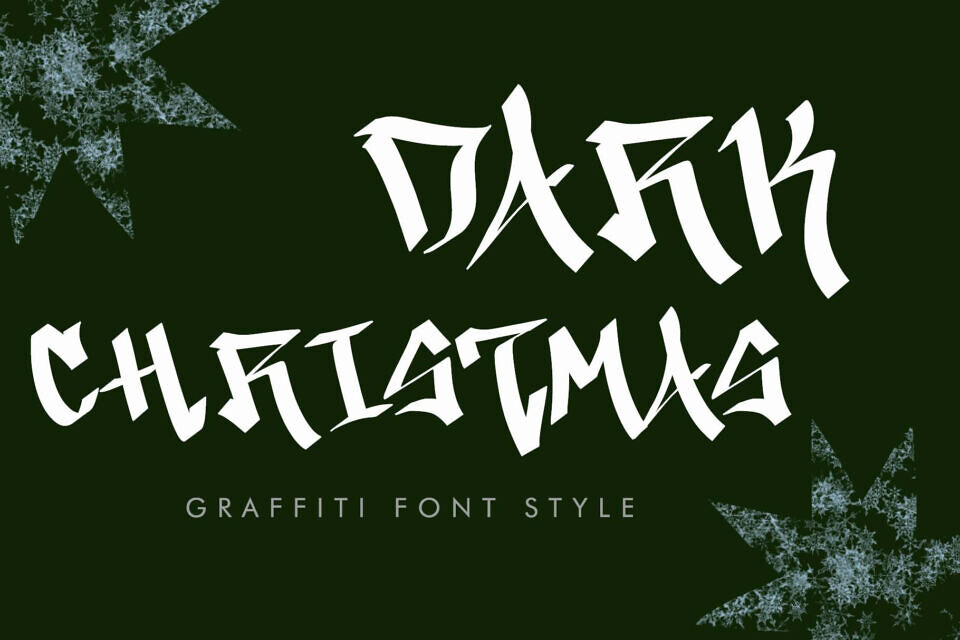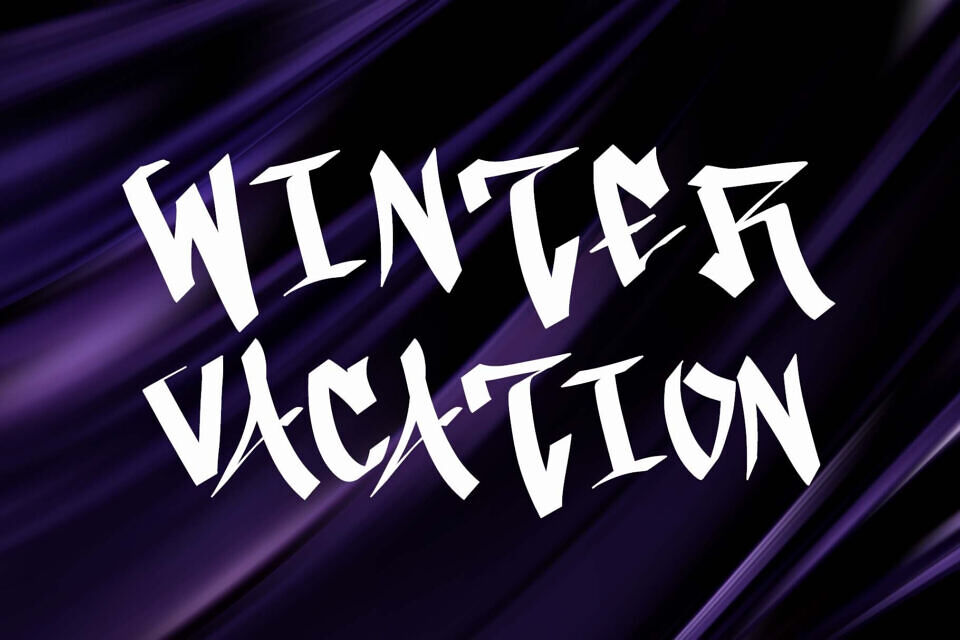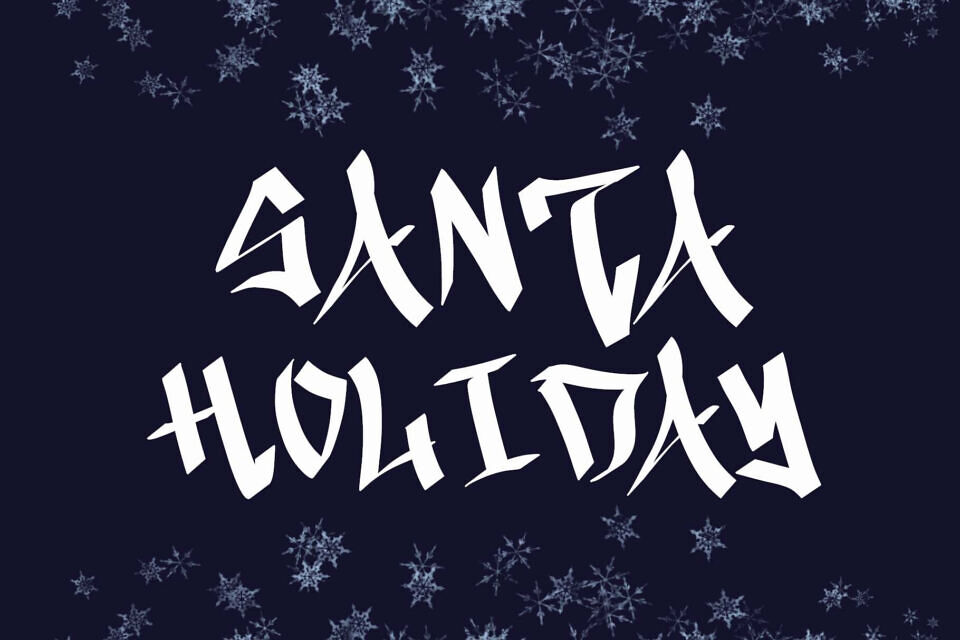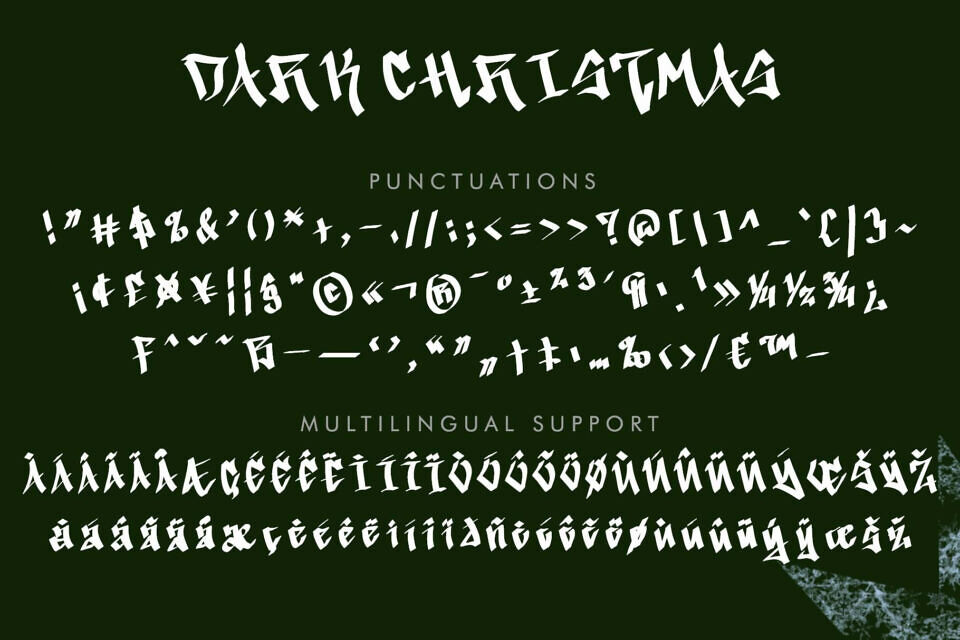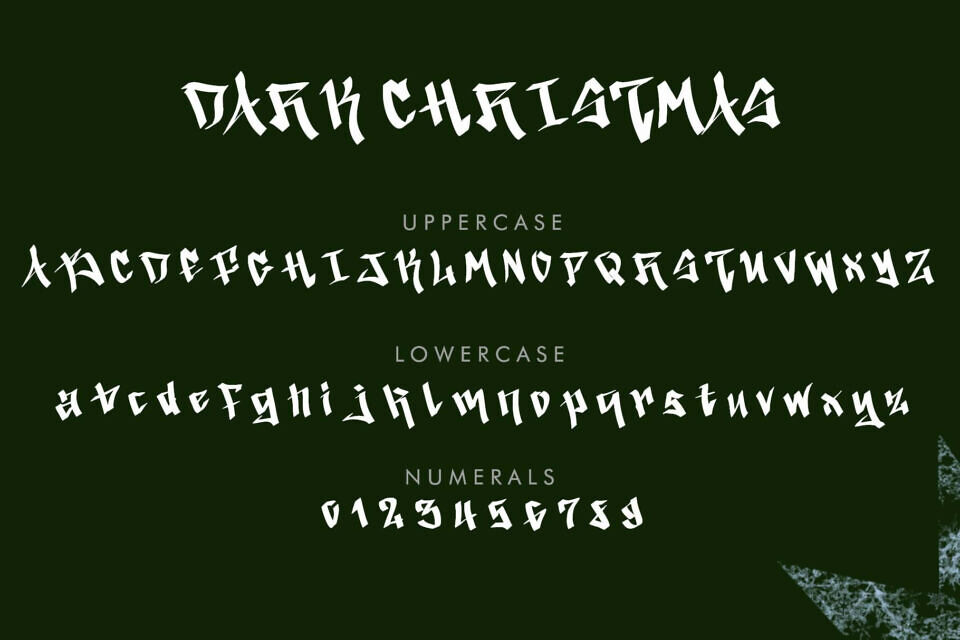
Dark Christmas is a unique Christmas graffiti font. It features uppercase and lowercase letters, numbers, punctuation, and multilingual support. It’s perfect for Christmas, Halloween, winter, fall, autumn, spring, and summer, banners, posters, branding, stickers, logos, tattoos, business branding, Easter, Teacher’s Day, murals, wall paintings, and more.